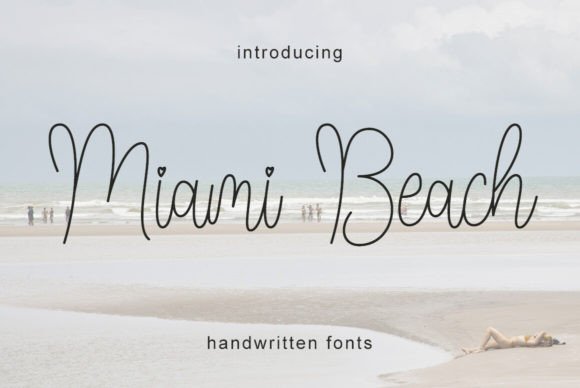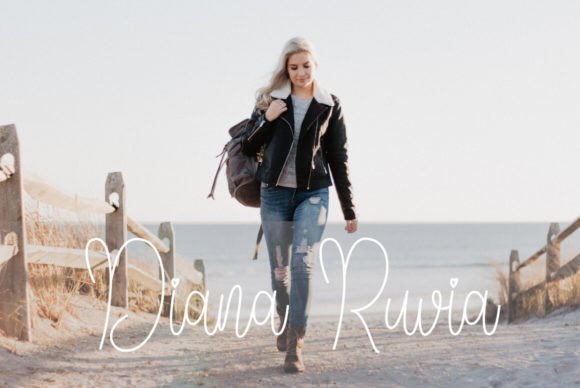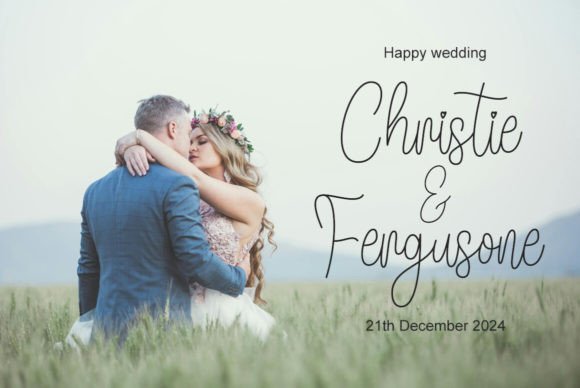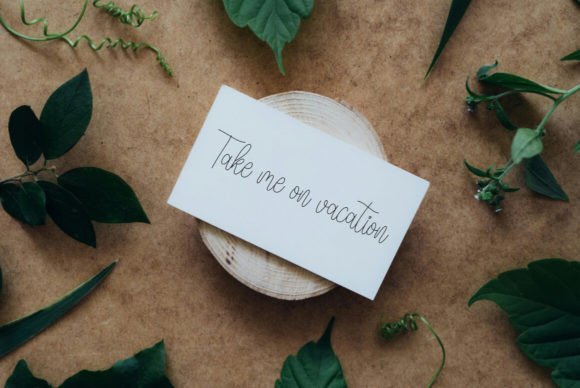
Miami Beach Font: Elegant Handwritten Script for Signature & Logo Design
About the Miami Beach Font
The wait is over! The incredible Miami Beach Font is now available for your design toolkit. Immerse yourself in the exquisite appeal of Miami Beach, a font that captures the innate finesse of a personal autograph. Its elegant sweeps and chic charm inject an elevated level of refinement to your artistry. Miami Beach is the dream fit for projects seeking a bespoke, artisan-inspired attribute – perfect for signatures, logos, and any creative piece seeking a hint of uniqueness. Create impressions that stand out with the unique allure of Miami Beach, the font that personifies sophistication and charm.
Miami Beach Font Usage Examples
Miami Beach Font Example